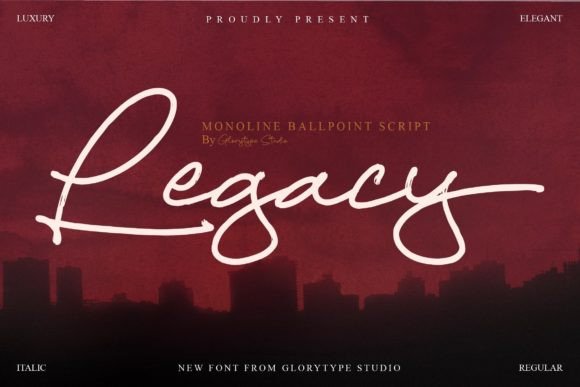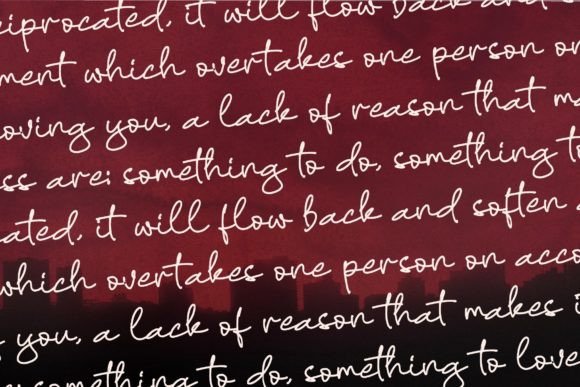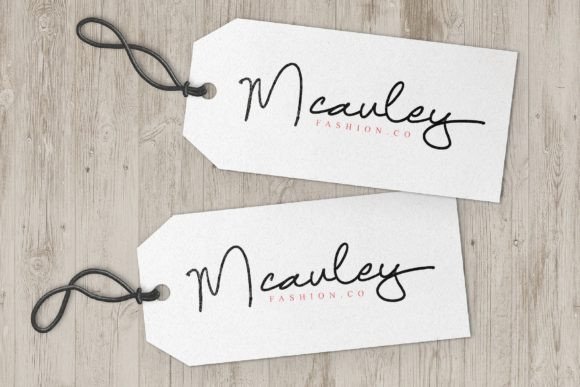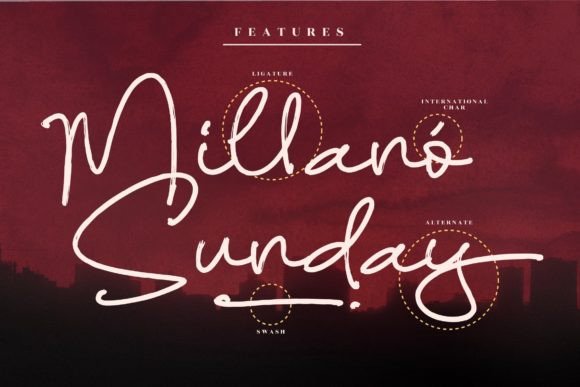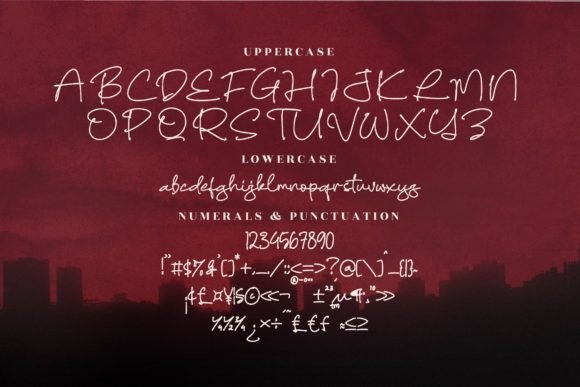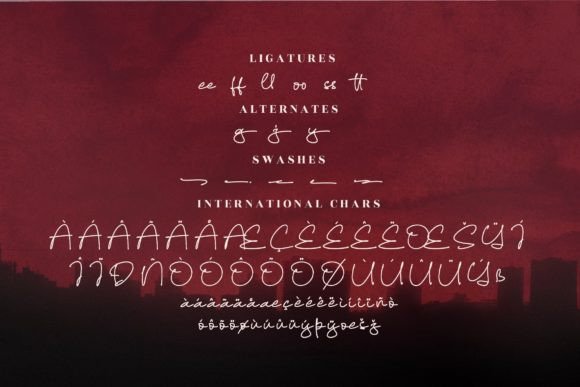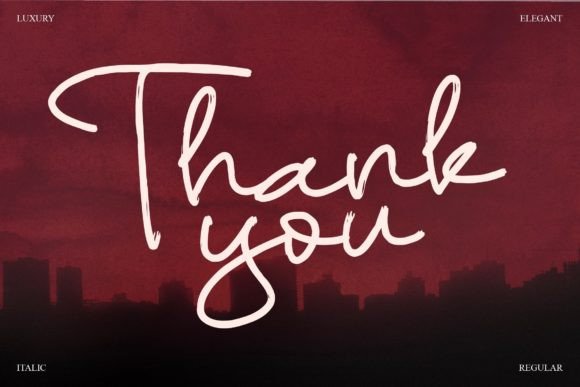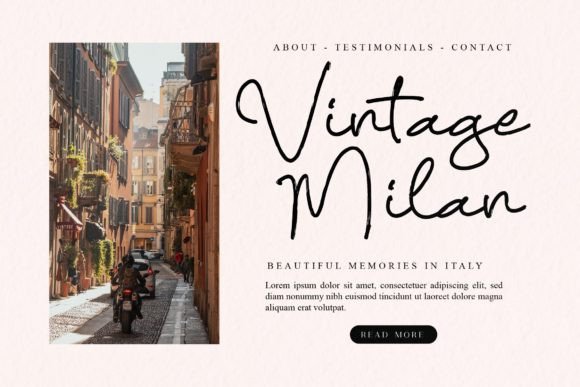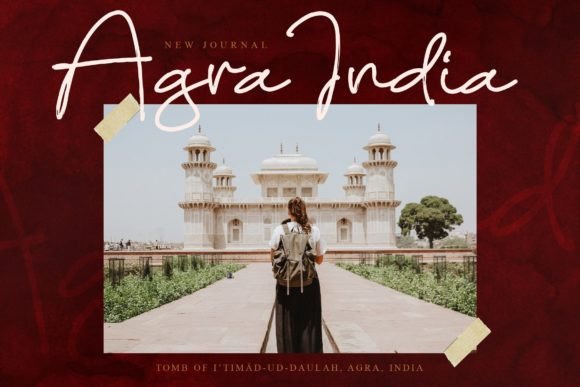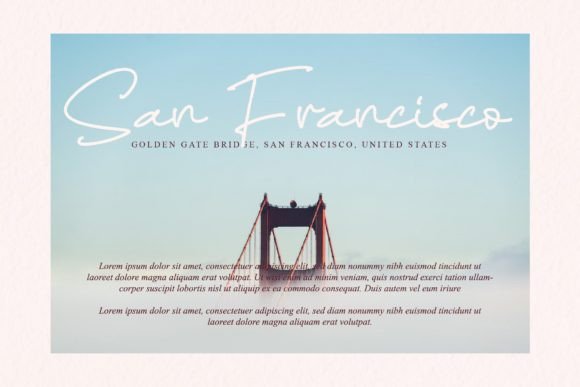
**Embrace Timeless Elegance with Legacy: The Monoline Ballpoint Font**
In the vast realm of typography, **Legacy** emerges as a font that embodies the essence of enduring style and sophistication. It’s not just a typeface; it’s a legacy of elegance, etched in every stroke and curve. Imagine a font that seamlessly marries classic aesthetics with modern design, a font that lends an air of timeless grace to every project – that’s the captivating allure of Legacy.
**A Timeless Classic:**
At its core, **Legacy** is a celebration of tradition and refinement. Its monoline ballpoint style carries the grace of vintage calligraphy, reminiscent of an era when penmanship was an art form. The letters flow seamlessly, creating an aura of elegance that transforms every word into a visual masterpiece. It’s more than just a font; it’s an homage to the legacy of handwritten craftsmanship, a tribute to the art of beautiful writing.
**Perfect for Every Project:**
Versatility is **Legacy’s** strength. It effortlessly complements an array of creative endeavors. Picture it on logos, where its dignified strokes create a mark of enduring identity. Envision it on product packaging, adding a touch of sophistication to every label. Whether it’s quotes, posters, shopping bags, t-shirts, book covers, or special event invitations, Legacy’s classic script taste enhances the visual appeal, making every project resonate with a sense of heritage and class.
**Crafting Beautiful Moments:**
In a world where aesthetics speak volumes, **Legacy** becomes the voice of beauty and poise. It’s more than just text; it’s an artistic expression, crafting beautiful moments in every design. Imagine it on homeware, transforming everyday items into timeless pieces of art. Picture it on greeting cards, where every word feels like a cherished memory. Whether it’s a label on a carefully crafted product or an invitation to a special event, Legacy adds a touch of sophistication, elevating the ordinary to the extraordinary.
**An Invitation to Elegance:**
**Legacy** isn’t just a font; it’s an invitation to elegance. It’s a journey into a world where aesthetics are a reflection of one’s legacy, where every design choice echoes the grandeur of timeless artistry. So, embrace the grace of Legacy, and let your projects speak with the eloquence of refined typography. With this font, your designs become not just visual elements but expressions of enduring style. Welcome to a world where every letter is a stroke of heritage and every design is a tribute to the legacy of beauty – the captivating world of **Legacy**.